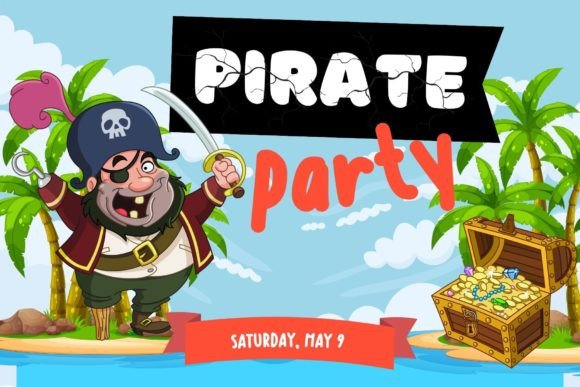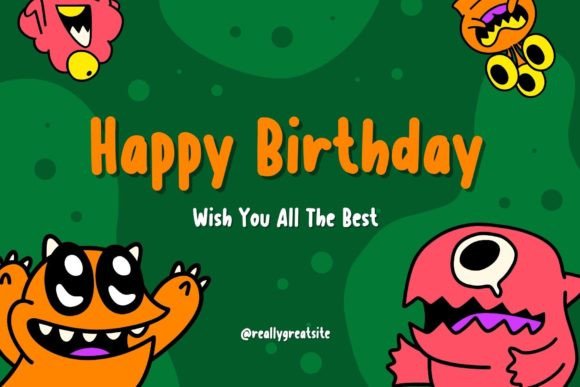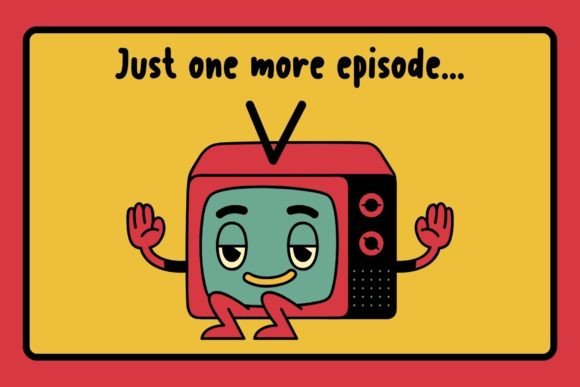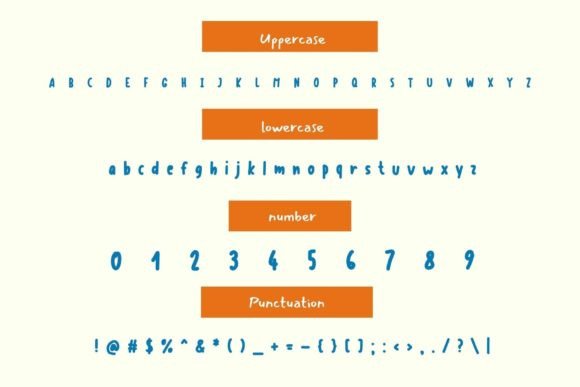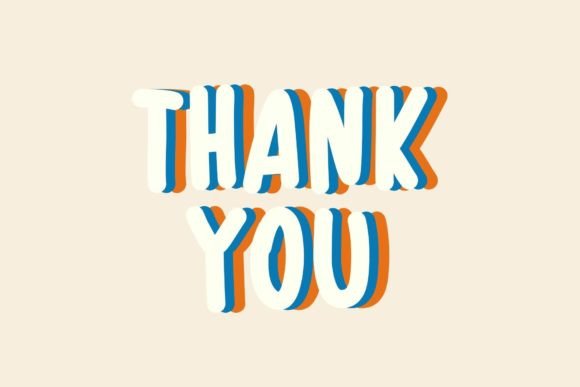
The Perfect Voyage for Your Design: Introducing Cruise Font
Have you ever stared at a blank canvas, searching for the perfect font to bring your creative vision to life? The moment of discovery is exhilarating – like finding a hidden treasure on a deserted island. And for designers, that moment just got a whole lot sweeter with the introduction of Cruise Font.
This captivating blend of Script and Handwritten styles is more than just a font – it’s a key to unlocking the essence of elegance and casual charm in your designs. Whether you’re crafting a luxurious brand identity, designing an invitation for a special occasion, or working on an artistic project that demands sophistication and individuality, Cruise Font is the perfect companion.
With its unique personality and subtle imperfections, Cruise Font adds a touch of magic to any design. It’s a valuable asset for designers who crave creativity and authenticity in their work, and we can’t wait to see the incredible projects that will be born from this beautiful font.
Cruise Font Key Features
- Font Family: Cruise Font is a modern sans-serif font designed for digital use. It includes 6 styles: Thin, Light, Regular, Medium, Bold, and Black.
- Unique Characteristics: Cruise Font features a unique blend of modern and minimalist design elements, making it an ideal choice for contemporary branding, advertising, and digital products.
Cruise Font Review
Cruise Font has some nice qualities that make it a decent addition to a designer’s toolkit. ✨ For instance, it has a friendly and approachable feel, making it suitable for use in headings or body text. The font also has a wide range of weights, which allows for a good deal of customization. ✨ Additionally, it’s relatively easy to read, even at smaller font sizes.
- Wide range of weights for customization
- Friendly and approachable feel
- Easy to read at smaller font sizes
However, there are some limitations to consider. ⚠️ One major issue is that the font can feel a bit generic and lacking in personality. It’s not particularly unique or memorable, which may make it harder to stand out in a crowded design landscape. ⚠️ Additionally, some users may find the font to be a bit too rounded or soft, which can make it harder to read in certain contexts.
Overall, I’d say Cruise Font is a solid but unremarkable choice for designers. While it has some nice qualities, it’s not particularly memorable or impactful. If you’re looking for a font that will really make your designs stand out, you may want to consider other options.
Tips for Getting the Most Out of Cruise Font
To maximize the impact of the Cruise Font, use it for headings and titles to create a clear hierarchy of information. You can also use it in combination with other fonts to create a unique and visually appealing design.
The Cruise Font is ideal for use in:
- Presentation design and slideshows
- Print materials and marketing collateral